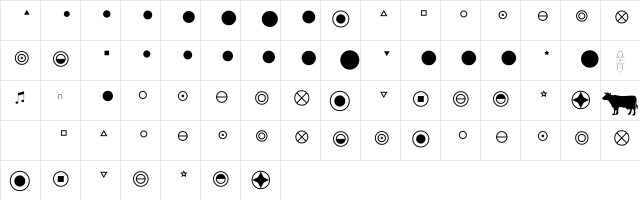
Population Monospaced
Style: Monospaced
Population Family
Population Monospaced
Design Context for Population
Population uses fixed-width spacing throughout, giving it the structured, systematic character associated with coding environments and technical documentation.